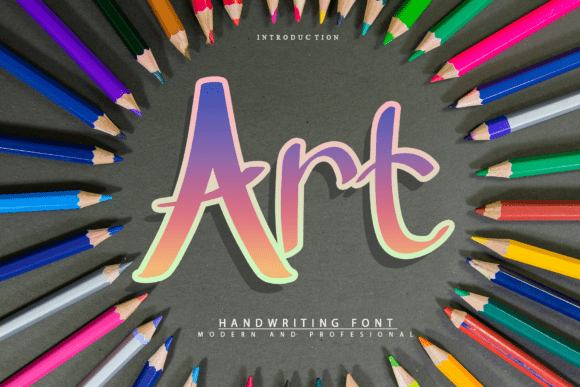
Introducing Art Font: The Ultimate Creative Handwriting Font
Are you looking for a font that can add a touch of creativity and energy to your designs? Look no further than Art Font, a vibrant and inspiring handwriting font that is perfect for artistic projects, educational designs, kids’ crafts, and more. With its smooth strokes and bold, gradient fill, Art Font is the ideal choice for anyone looking to bring their ideas to life with a fun and modern flair.
What is Art Font?
Art Font is a carefully crafted handwriting font that is designed to inspire creativity and bring a sense of playfulness to your designs. Its unique blend of smooth strokes and bold, gradient fill makes it stand out from other fonts, and its versatility ensures that it can be used in a wide range of applications.
Key Features of Art Font
1. Smooth Strokes
Art Font features smooth, flowing strokes that give it a natural and effortless look. Whether you’re creating a logo, a poster, or a social media graphic, Art Font’s smooth strokes will help your design look polished and professional.
2. Bold, Gradient Fill
One of the standout features of Art Font is its bold, gradient fill. This eye-catching effect adds depth and dimension to your designs, making them more engaging and attention-grabbing. The gradient fill also helps to give Art Font a modern and edgy feel that’s perfect for creative projects.
3. Playful yet Professional
Art Font strikes the perfect balance between playfulness and professionalism. Its fun and energetic vibe makes it ideal for kids’ crafts, educational designs, and other projects that require a creative and youthful approach. At the same time, its smooth strokes and bold fill ensure that it looks professional and polished, making it suitable for more formal applications as well.
Use Cases for Art Font
1. Artistic Projects
Art Font is a natural fit for artistic projects, such as painting, drawing, and mixed media designs. Its bold, gradient fill and smooth strokes make it perfect for creating eye-catching posters, flyers, and other promotional materials.
2. Educational Designs
Art Font is also an excellent choice for educational designs, such as worksheets, activity sheets, and educational posters. Its playful and engaging vibe helps to make learning more fun and interactive, while its smooth strokes and bold fill ensure that it looks professional and polished.
3. Kids’ Crafts
Kids’ crafts are another area where Art Font truly shines. Its fun and energetic vibe makes it perfect for creating colorful and engaging craft projects, such as coloring pages, DIY cards, and other creative activities.
4. Social Media Graphics
Art Font is also an excellent choice for social media graphics, such as Instagram posts, Facebook graphics, and Twitter headers. Its bold, gradient fill and smooth strokes make it perfect for creating eye-catching and engaging graphics that will help you stand out in a crowded social media landscape.
Tips for Using Art Font
1. Experiment with Colors
One of the best things about Art Font is its bold, gradient fill. Don’t be afraid to experiment with different colors and gradients to find the perfect combination for your design.
2. Mix and Match with Other Fonts
Art Font is a versatile font that can be paired with a wide range of other fonts. Try mixing and matching it with other fonts to create a unique and eye-catching design.
3. Use it for Headings and Titles
Art Font is perfect for headings and titles, where its bold, gradient fill and smooth strokes can really make an impact. Try using it to create eye-catching headings and titles for your designs.
In conclusion, Art Font is a vibrant and inspiring handwriting font that is perfect for artistic projects, educational designs, kids’ crafts, and more. With its smooth strokes and bold, gradient fill, it’s the ideal choice for anyone looking to bring their ideas to life with a fun and modern flair. Whether you’re a designer, educator, or simply someone who loves to create, Art Font is a versatile and engaging font that is sure to inspire your creativity.